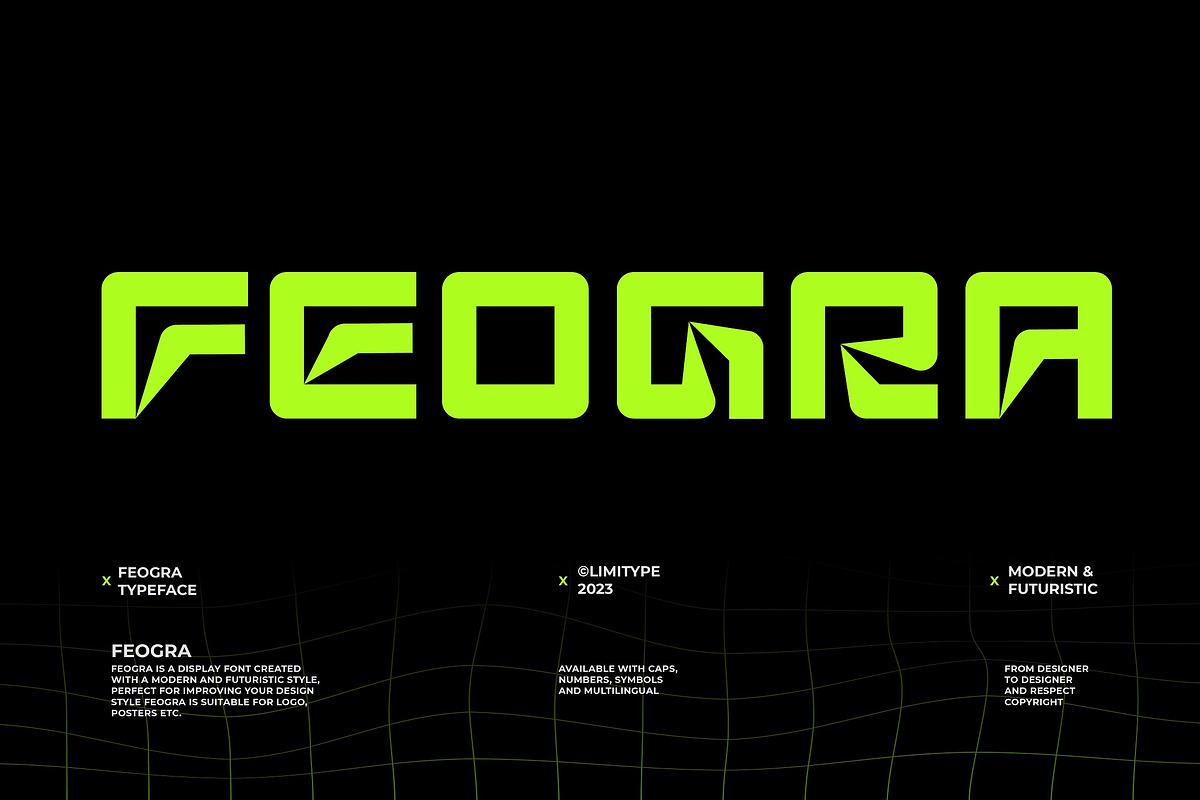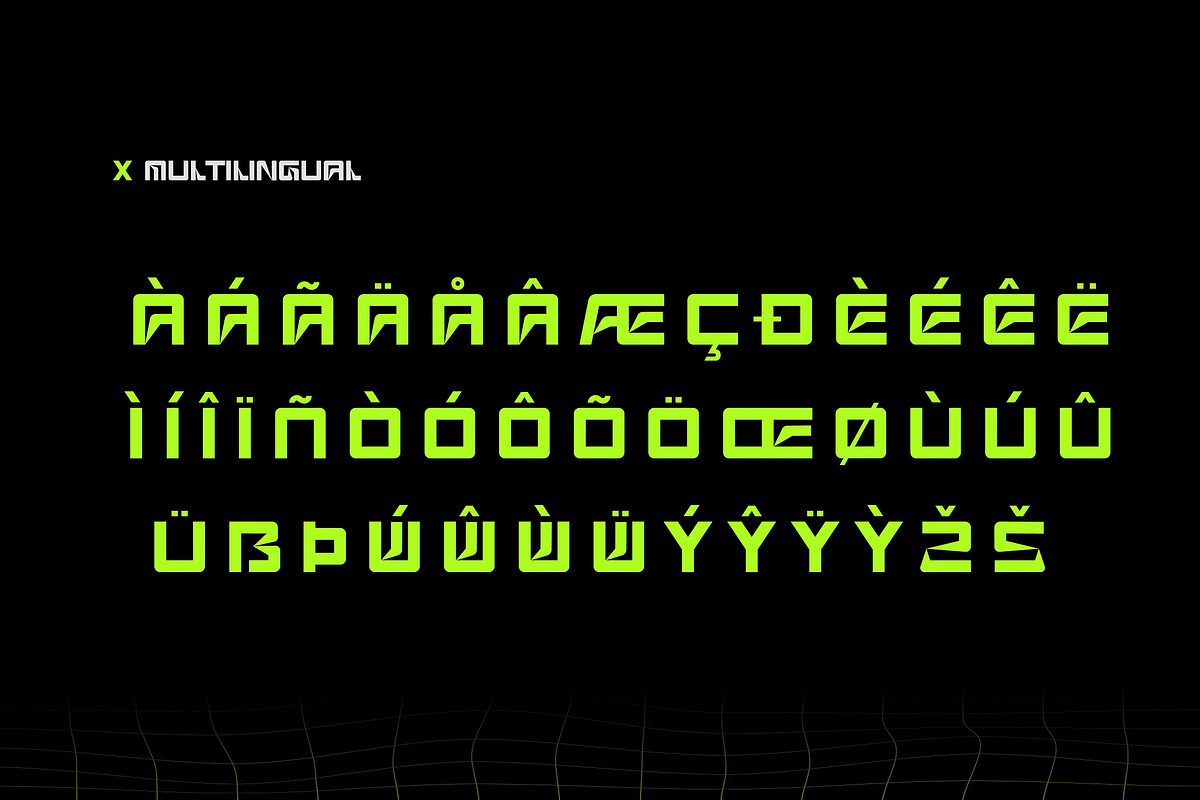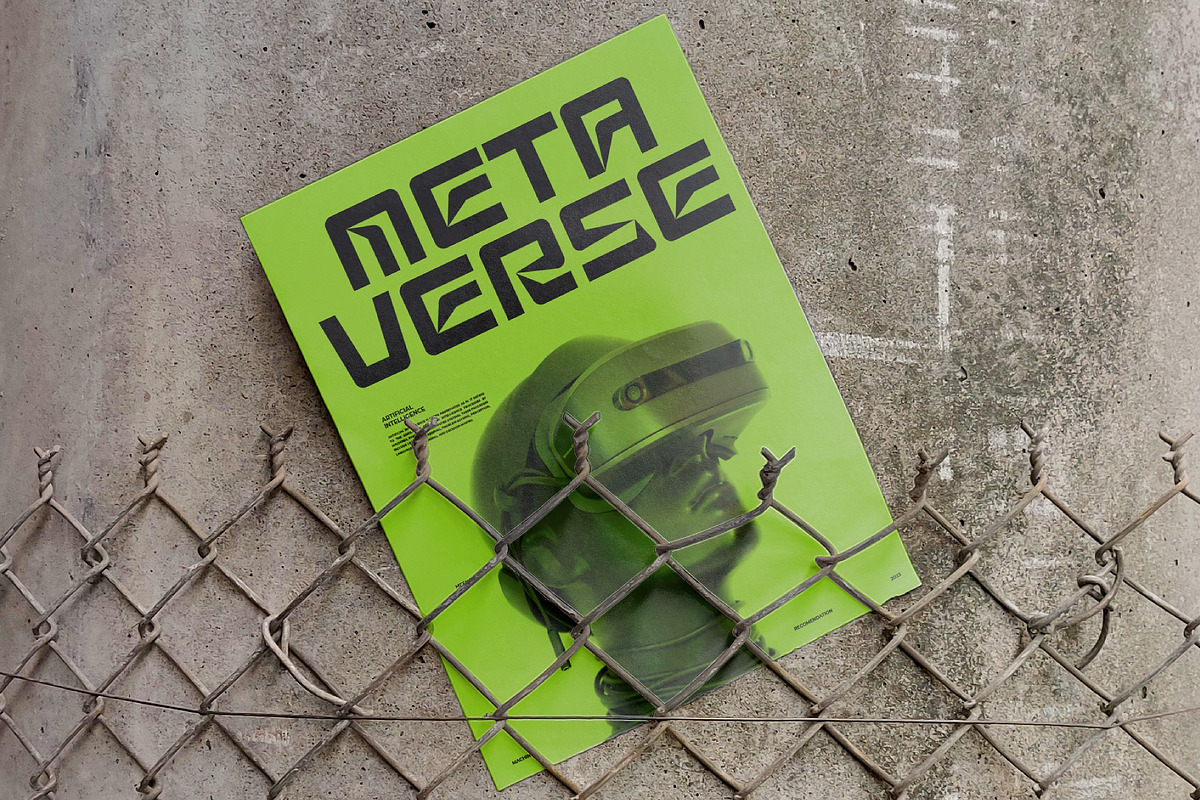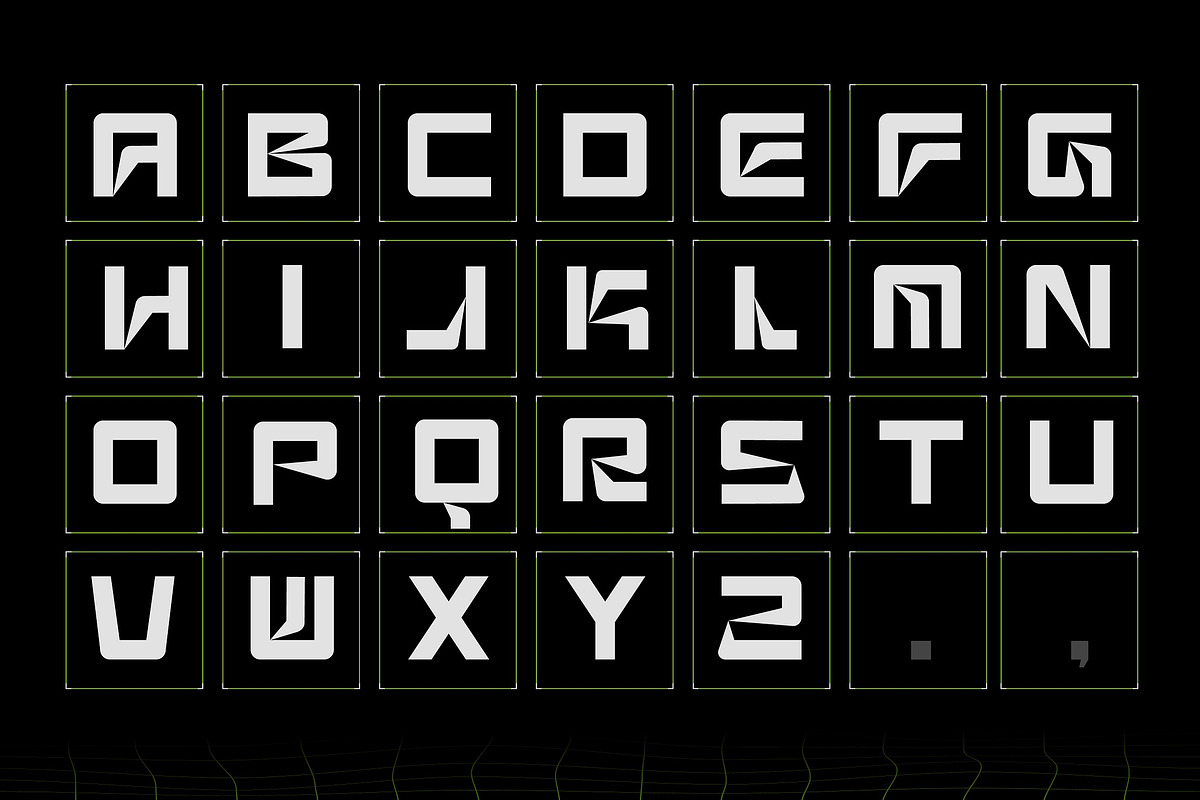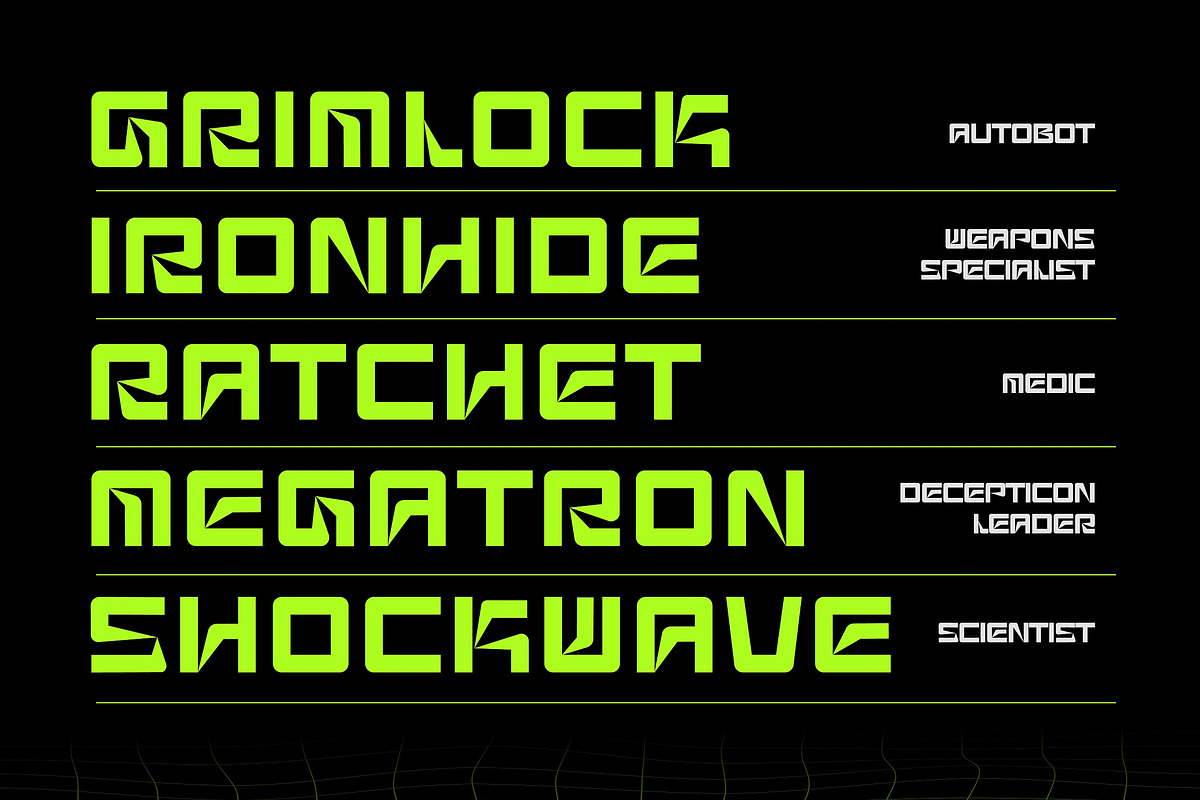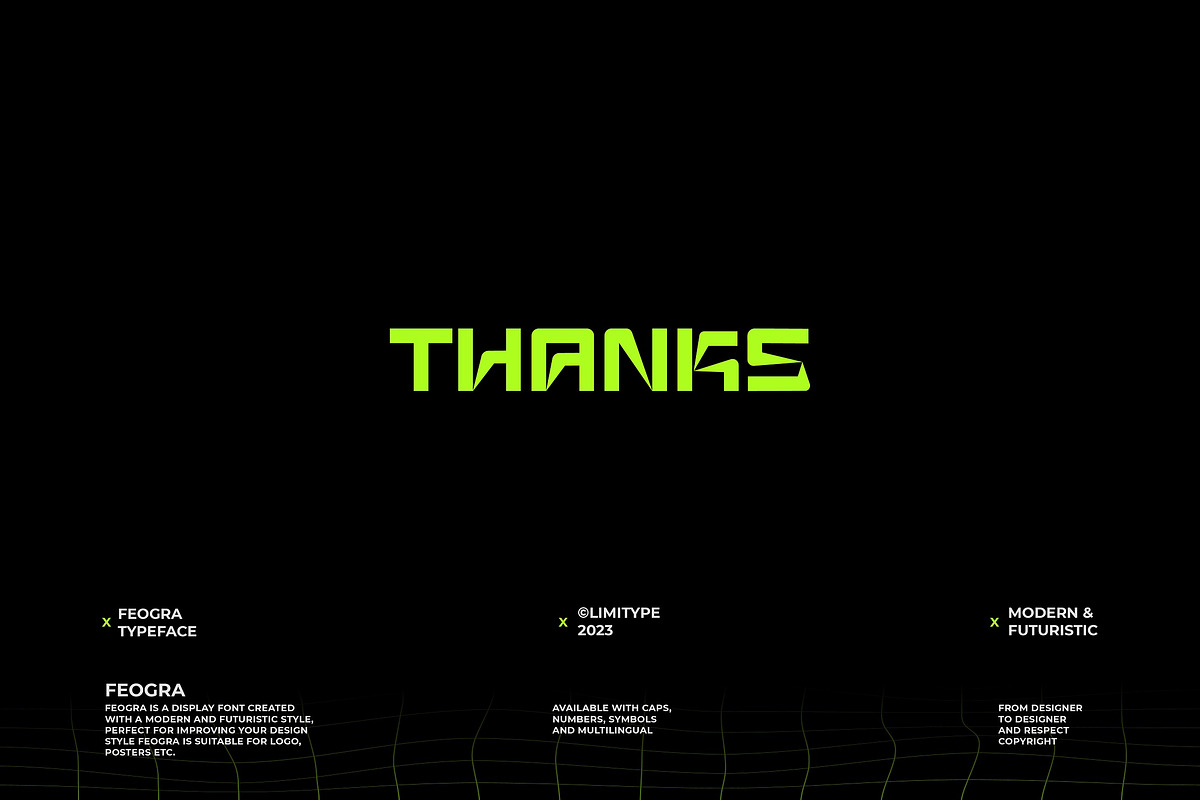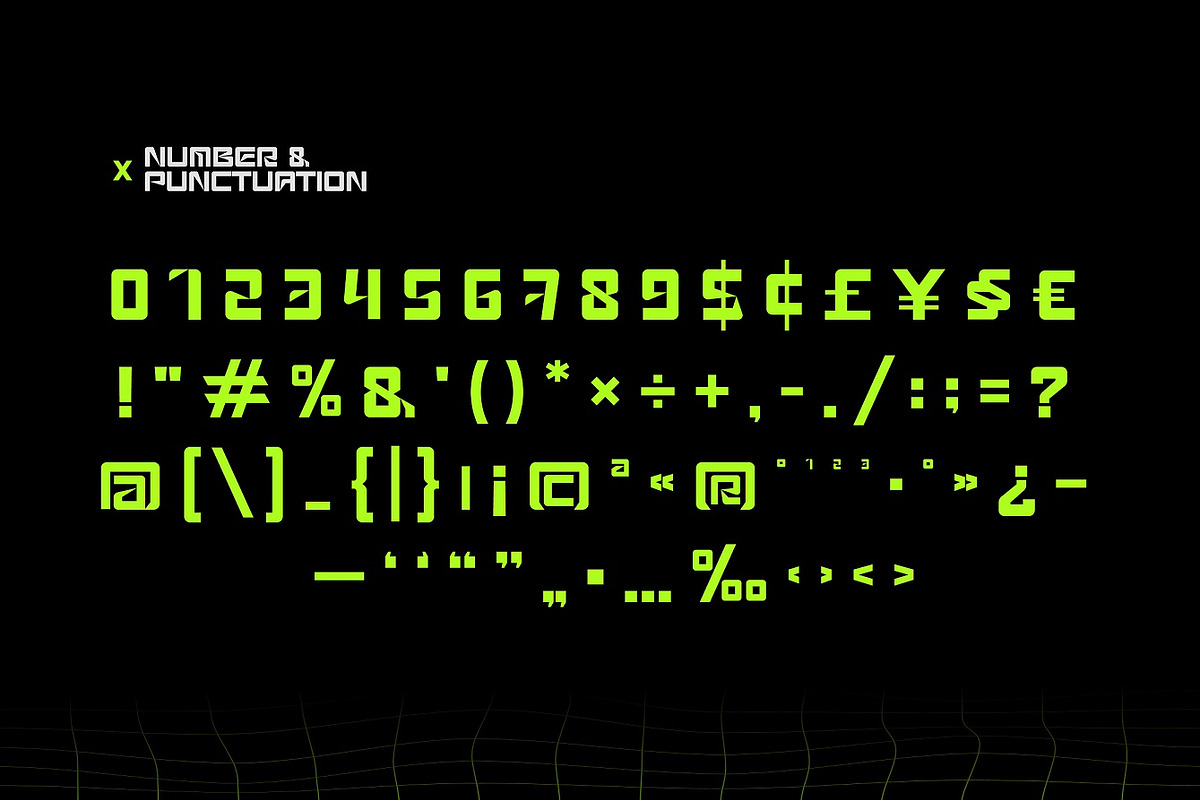
Feogra - Futuristic Font
Feogra is a font inspired by the geometric shape of a robot designed in a modern style that makes this font look futuristic and unique, suitable for your modern design and requires a bold and prominent typeface. This font can also be applied to posters, magazines, etc.
Feogra comes with:
- Uppercase,
- Numbers,